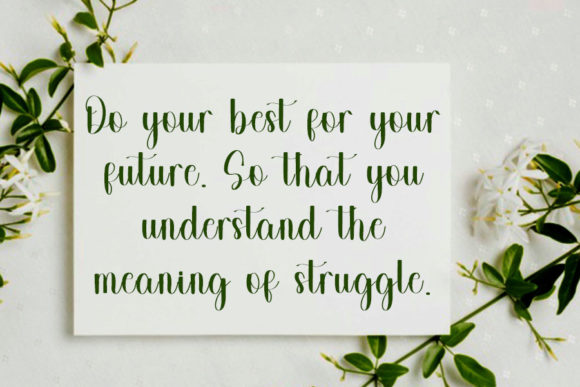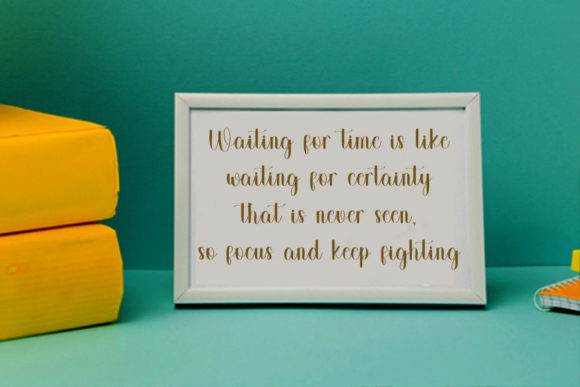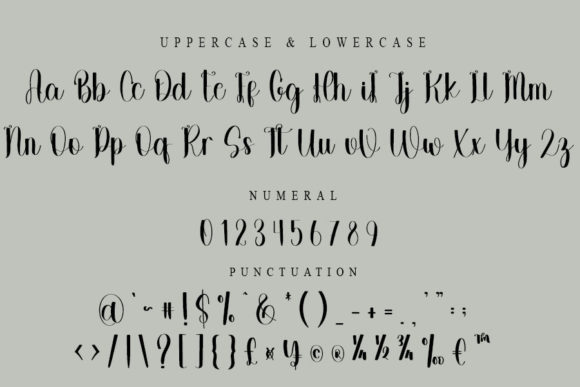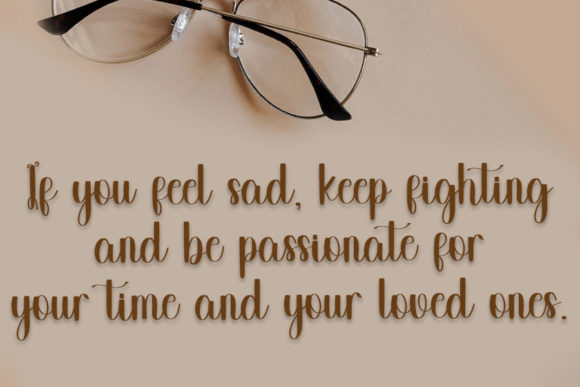
Introduction to Private Font
Private is a sweet, whimsical, and flowing script font.
It will add a beautiful, romantic touch to wedding invitations, gender reveal decor, nursery items, and many more projects .
Key Features of Private Font